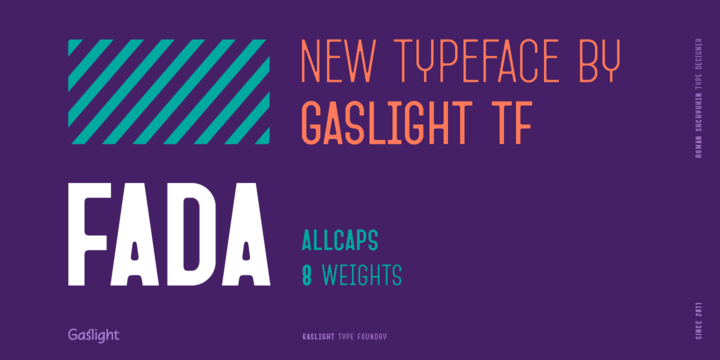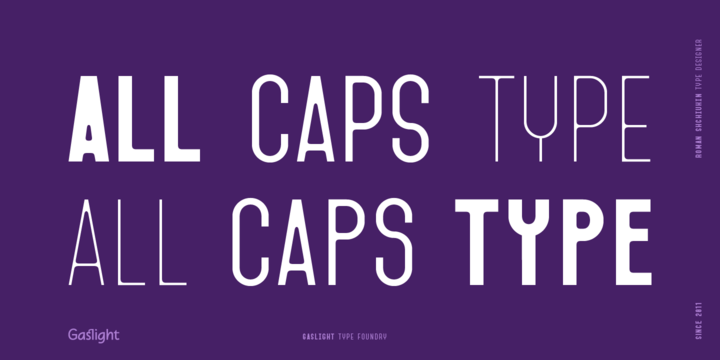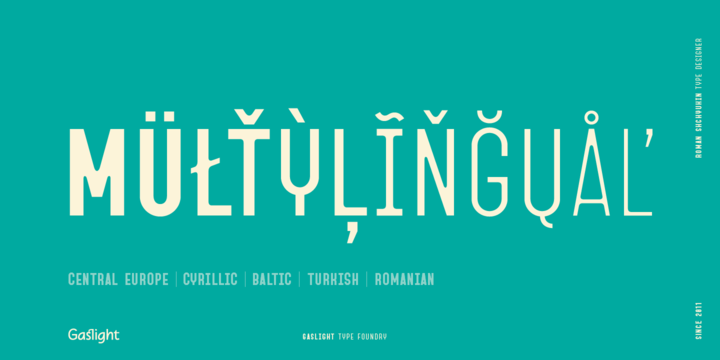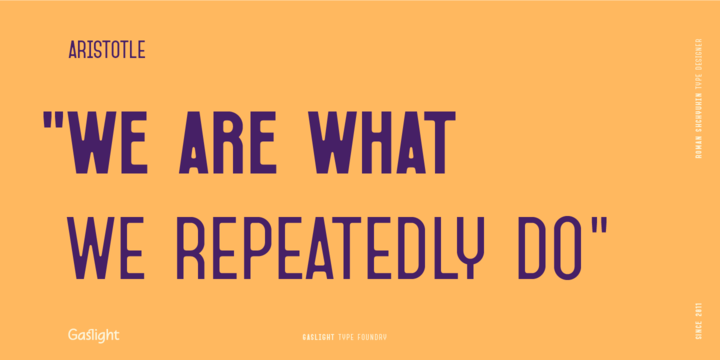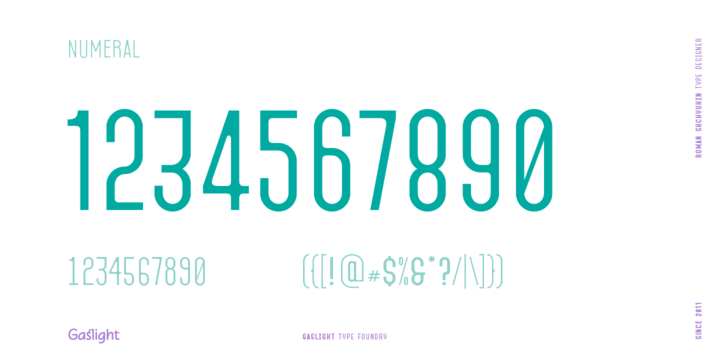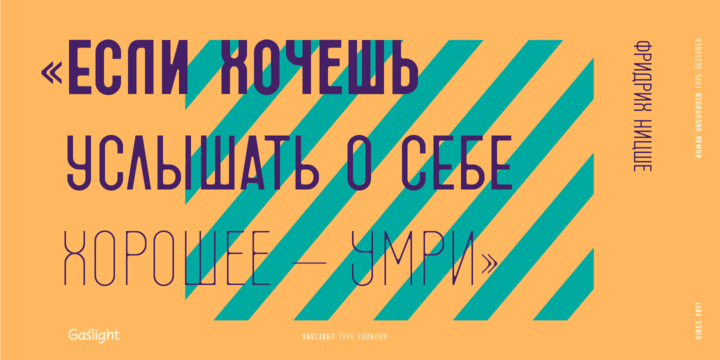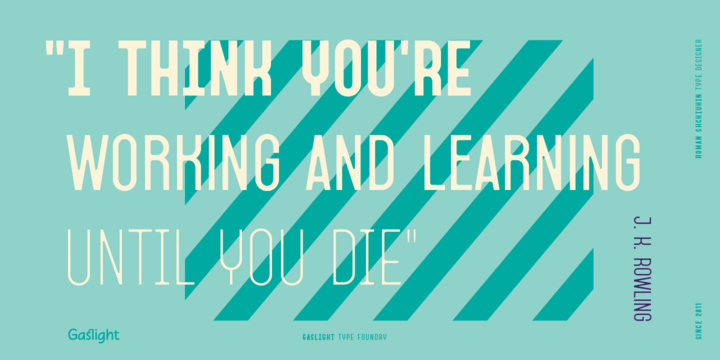
Fada Font Family
About this font family
Fada is a unicase geometric grotesque that was made on the basis of a logo for a bar, which we have designed. We were inspired by the license plate, in which the letters have specific heats in places conjoined. The only difference between upper or lower case characters is reduced and increased waist. This is characteristic not only for letters and digits. Fada – good for fashion, editorial, posters, logos and so on.